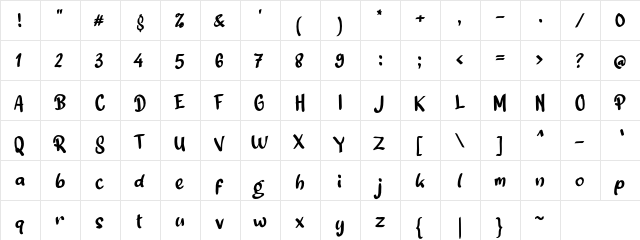
a Semongko Regular
| Designer | Wahyu Eka Prasetya |
Design Context for a Semongko Typeface
a Semongko is a composed and adaptable typeface that performs quietly and consistently across a wide range of design contexts.